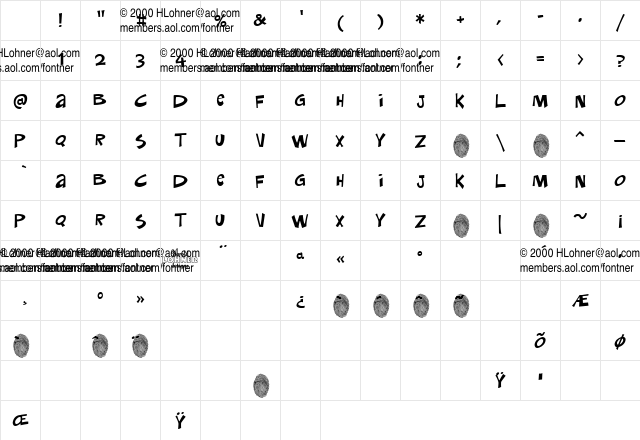
Complete CokerTwo Trial Version glyph index. Displaying only characters natively supported by CokerTwo Trial Version font.
CokerTwo is a composed and adaptable typeface that performs quietly and consistently across a wide range of design contexts.